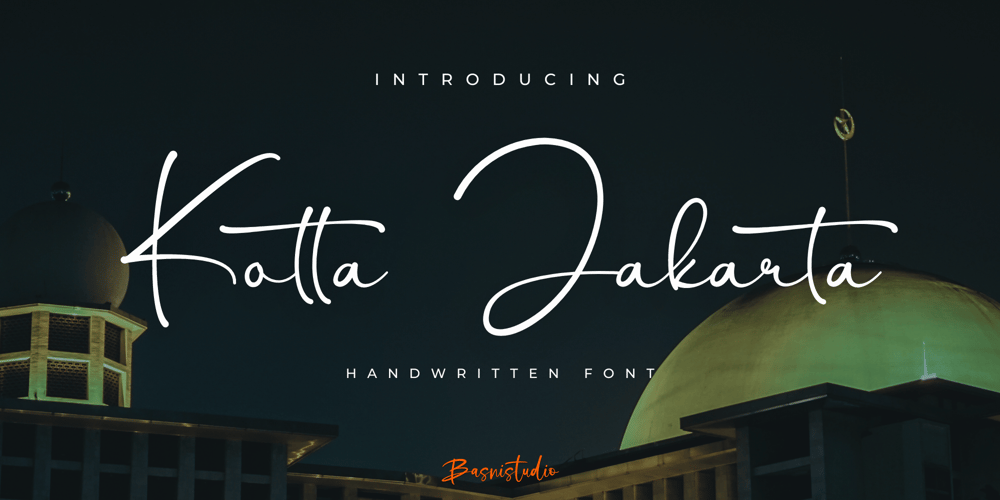
Kotta Jakarta Font Family was designed by Bery Arisandi and published by Basnistudio. Kotta Jakarta contains 1 styles and family package options. Introducing Kotta Jakarta Handwritten Font , made with Naturaly & precision, perfect for branding, websites, and editorial designs. Includes all Characters letters, multilingual support, punctuation, binding. everything can be easily accessed using software that supports OpenType. What’s include: Kotta Jakarta Handwritten Font Ligatures Multilingual Support ( Support for 90 languages ) Thank You Very Much